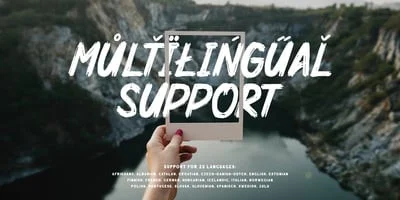
Mighty Brush Font
The Mighty Brush Font excels in various design applications including powerful street art branding, bold graffiti-inspired marketing, dynamic art studio communications, mighty paintbrush company identities, creative art supply packaging, bold artistic workshop promotions, powerful mural project signage, dynamic creative agency materials, artistic brush lettering designs, and impressive artistic projects that demand brush power and artistic sophistication.
What makes the Mighty Brush Font exciting is its powerful embodiment of artistic strength and bold brush mastery through letterforms that capture the essence of confident brushwork and the dynamic energy of expressive artistic creation. This typeface demonstrates exceptional boldness through carefully crafted characters that suggest the sweeping strokes of master painters, the confident flow of skilled brush artists, and the creative power that makes brush lettering so visually commanding and artistically impressive. The font's mighty personality makes it perfect for art studios and creative organizations seeking to communicate artistic authenticity, brush mastery, and the kind of powerful creativity that creates memorable artistic experiences through typography that literally paints with mighty brush strokes.
The Mighty Brush Font family typically includes powerful weight variations that enhance the artistic aesthetic, featuring bold brush styling and extended character sets optimized for artistic communications and creative applications. These family options often include brush-inspired alternates, artistic symbols, and creative decorative elements that provide designers with comprehensive tools for creating authentically artistic typography that celebrates brush artistry while maintaining contemporary design appeal and artistic credibility.
Art professionals and creative organizations consistently choose Mighty Brush Font for projects requiring typography that communicates artistic authenticity and brush sophistication. This typeface delivers exceptional performance in artistic marketing, creative branding, and brush communications where establishing power and creating bold artistic atmosphere is essential for creative community engagement. The font's mighty character makes it particularly effective for studio and gallery applications. Download Mighty Brush Font today to access this artistically powerful typeface that transforms creative communications with its brush elegance and artistic sophistication, creating compelling artistic experiences that honor the magnificent strength of brush artistry while celebrating the creative power that defines authentic artistic expression and brush painting excellence.